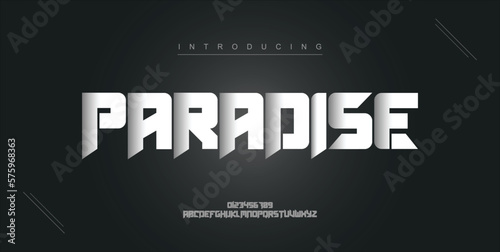
Paradise, digital modern alphabet new font. Creative abstract urban, futuristic, fashion, sport, minimal technology typography. Simple vector illustration with number